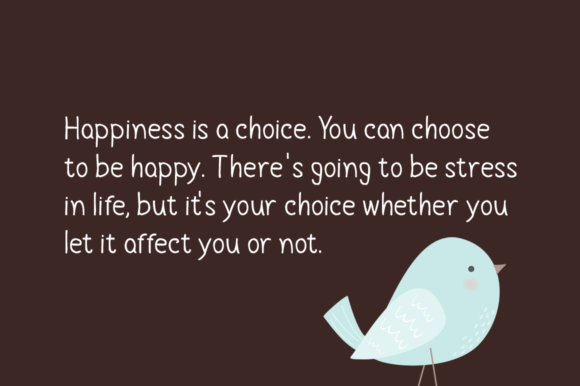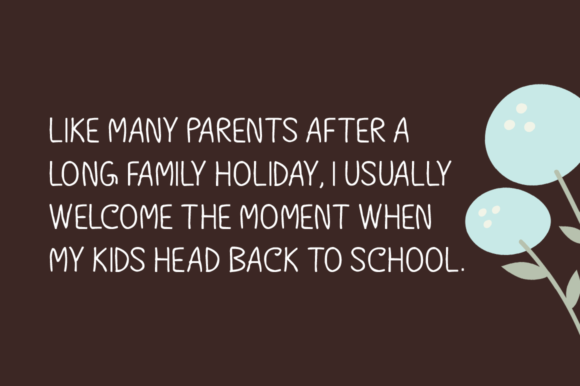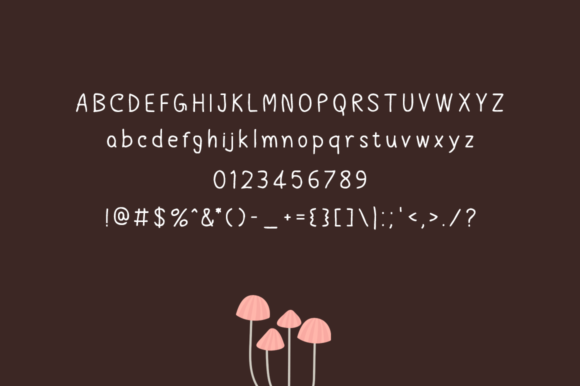
Introduction to New Narrative Font
New Narrative is a brand new handwritten display font, perfectly suited for stationery, logos, t-shirts, paper, print design, website headers and much more.
Key Features of New Narrative Font
Why Choose New Narrative Font?
New Narrative Font offers exceptional quality and versatility, making it a valuable addition to your design toolkit. Whether you’re creating for personal projects or commercial use, New Narrative Font delivers professional results.